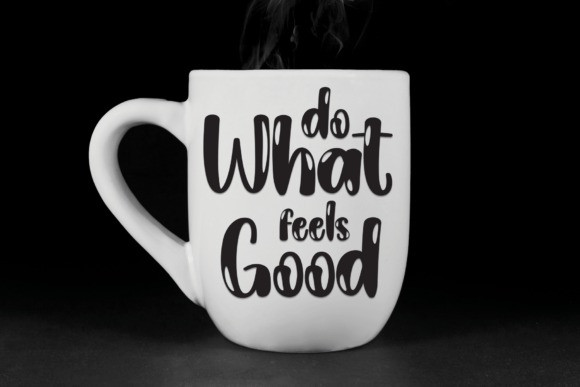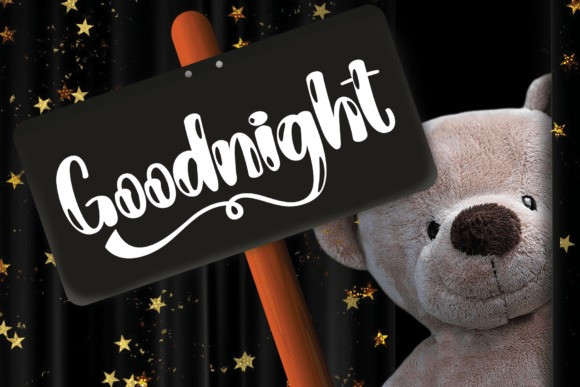
Christmas Cheerfully Font
Christmas Cheerfully Font is a cute and quirky display font. It will add an incredibly joyful touch to your designs. Add this beautiful display font to each of your creative ideas and notice how it makes them stand out!